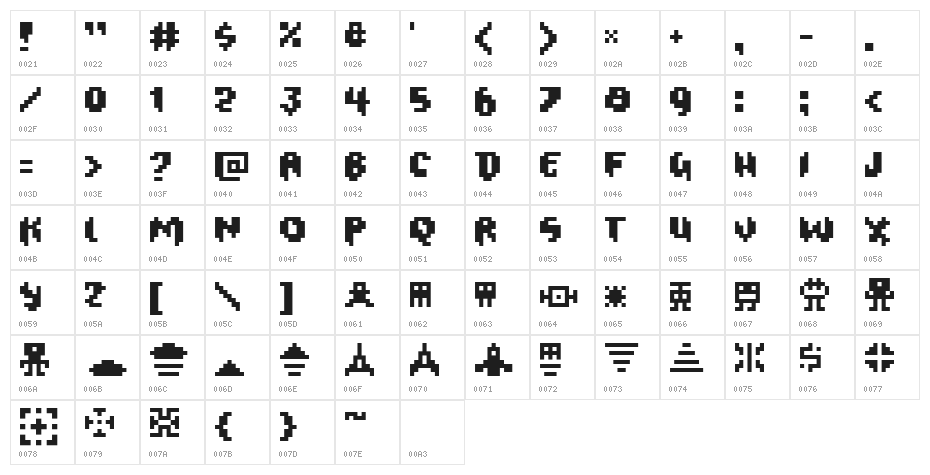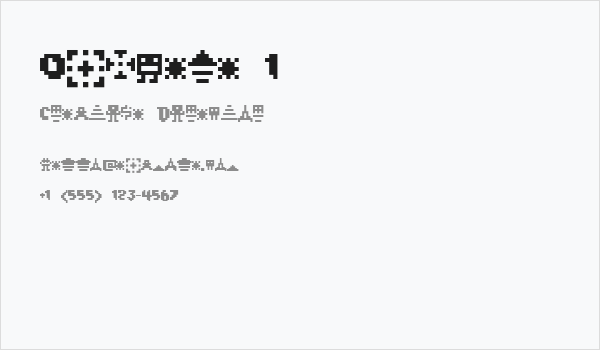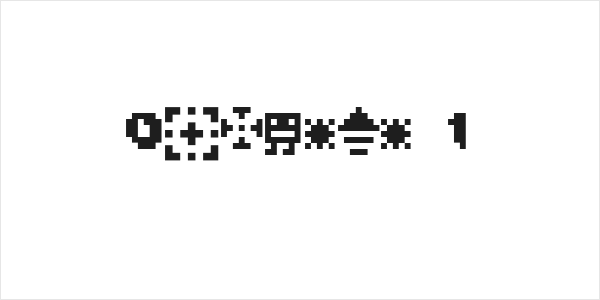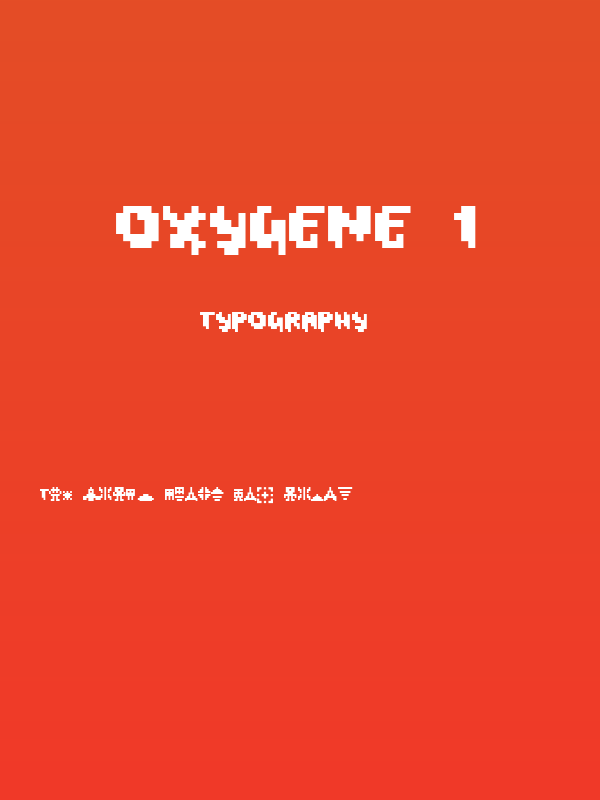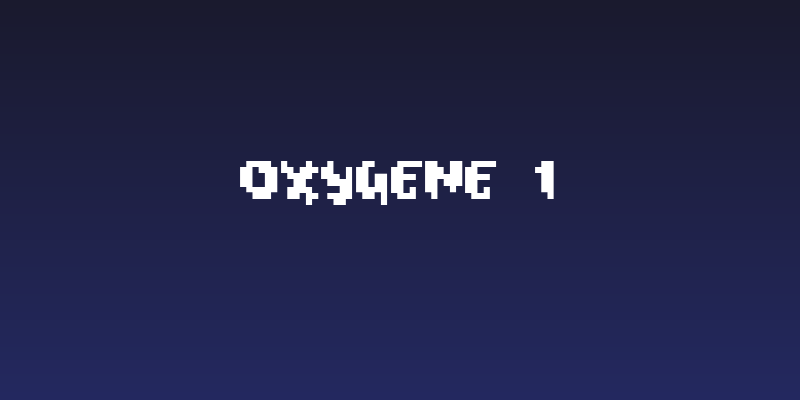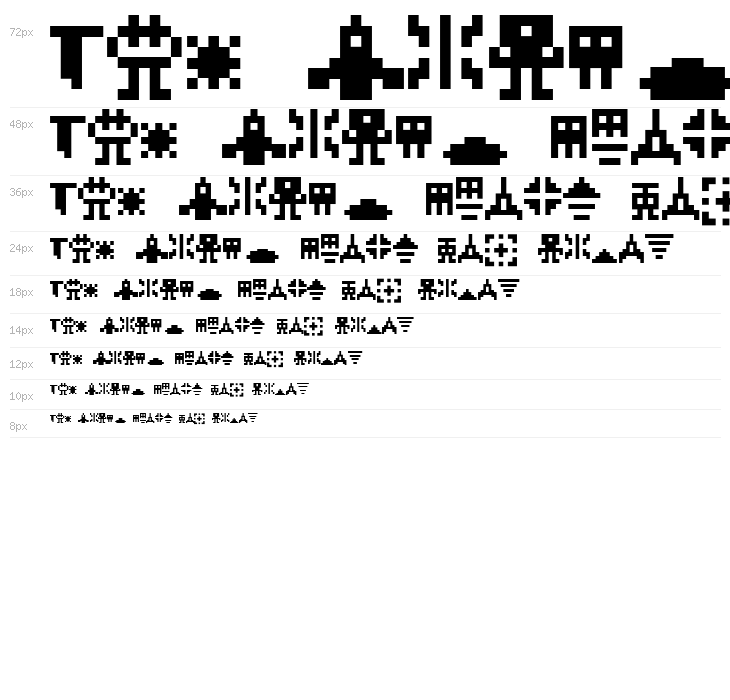
Oxygene 1 Font
Oxygene 1 Description
This font features a bold, pixelated design reminiscent of early digital and arcade aesthetics. Each character is constructed with blocky, geometric shapes, giving it a distinctly retro and digital feel. The uppercase and lowercase letters maintain a consistent height, emphasizing uniformity and simplicity. Numbers and special characters follow the same pixelated style, ensuring a cohesive look across all glyphs. This font is ideal for projects that aim to evoke nostalgia for classic video games or digital interfaces from the 1980s and 1990s.
OXYGENE-1 UPPERCASE
OXYGENE-1 LOWERCASE
OXYGENE-1 OTHER CHARS
| Overall Style | Retro, Digital |
| Use Case | Headlines, Logos, Digital Art |
| Proposed Projects | Ideal for retro video game designs, digital art projects, and nostalgic branding. |